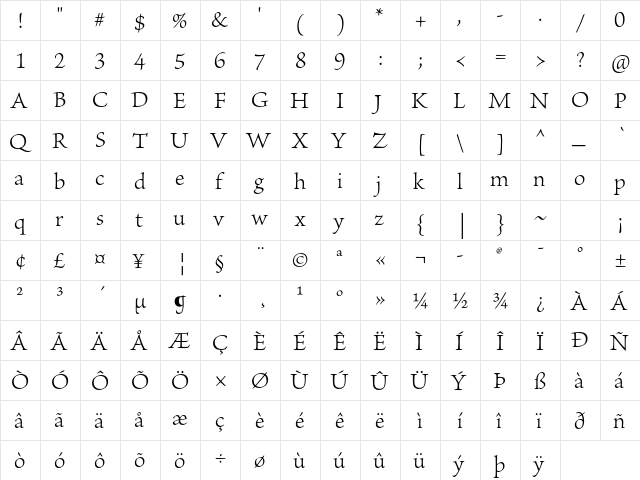
Brioso Pro Light
| Designer | Robert Slimbach |
Design Context for Brioso Pro Typeface
Brioso Pro is a composed and adaptable typeface that performs quietly and consistently across a wide range of design contexts. The delicate stroke weight brings airiness and refinement to layouts.